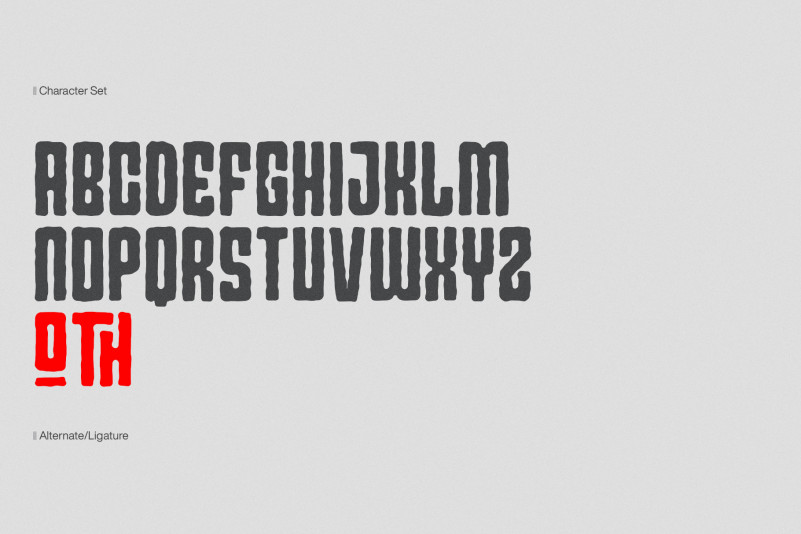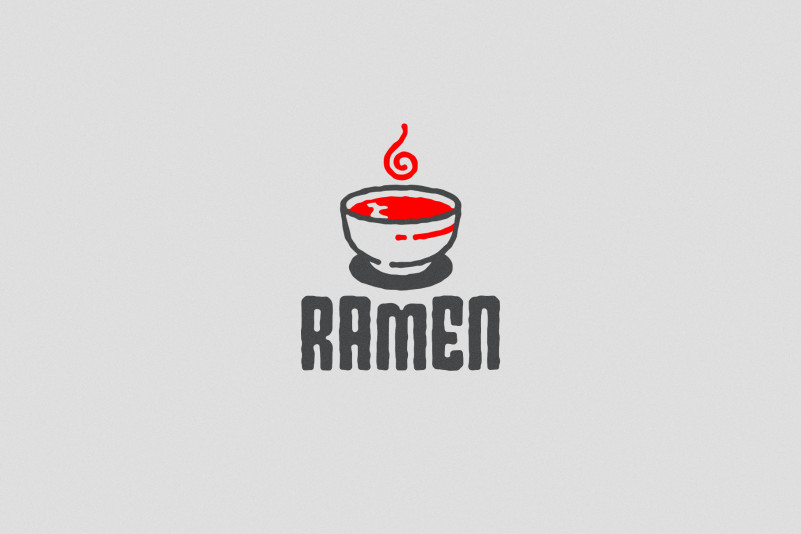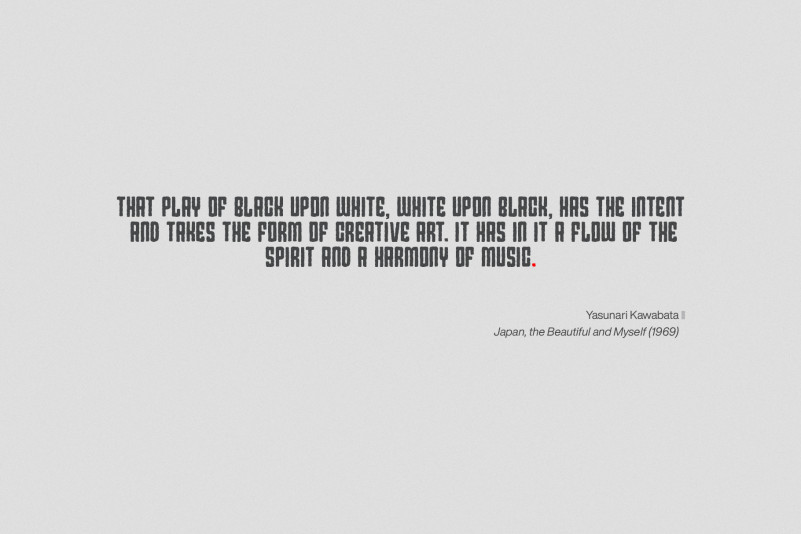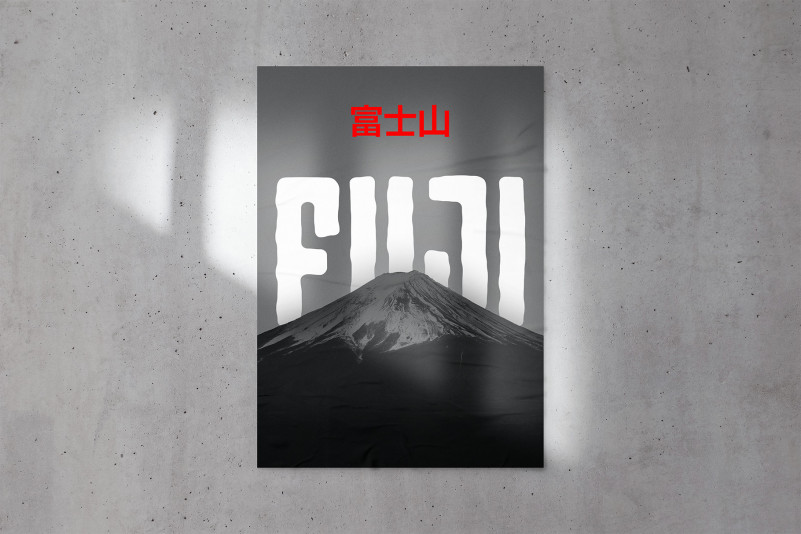
Small Moshi Moshi Font
Introducing “Small Moshi Moshi Font” – Inspired by Japanese street posters, this all-caps block typeface delivers modernness with some brushy imperfections.
Taking inspiration from Japanese hand-painted street art, It’s has rough letterforms, but at the same time communicates a modern and minimalistic style.
Ideal to add an eye-catching appeal to your logo designs, branding, quotes, product packaging, merchandise and social media posts.